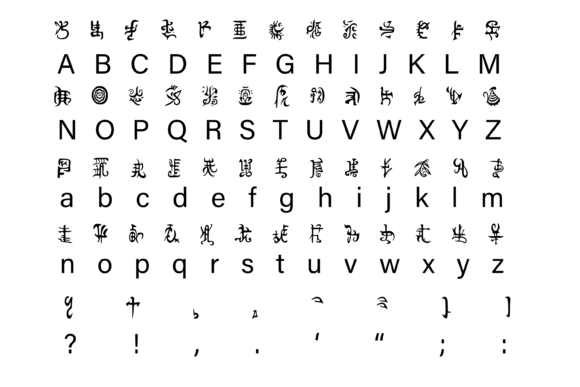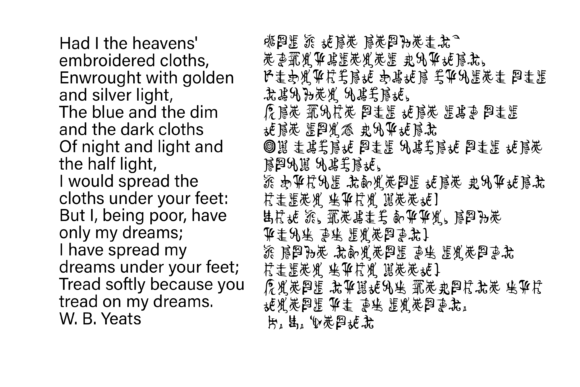
Introduction to Fantasy Script 11 Font
Imagine yourself sitting in a dimly lit tavern, surrounded by fellow adventurers, pouring over dusty tomes and ancient scrolls. The flickering candles cast shadows on the walls as you pour over the intricate details of your next Dungeons and Dragons campaign. And then, it hits you – the perfect font to bring your fantasy world to life. The Fantasy Script 11 Font is the perfect design resource to elevate your creative project and transport your audience to a world of magic and wonder.
As a designer, you’re always on the lookout for high-quality fonts that can elevate your work and make it stand out. The Fantasy Script 11 Font is a valuable addition to any design arsenal, offering a transparent background and free download for effortless integration into your project. With its unique, whimsical style, this font is perfect for designers working on fantasy-themed projects, from novels to video games and beyond.
Key Features of Fantasy Script 11 Font
- High-quality font with intricate, handwritten design elements, perfect for creative projects that require a unique touch.
- Unique characteristics include flowing, cursive lines and decorative flourishes, adding a touch of whimsy to any design.
- Ideal for use in creative projects such as book covers, invitations, and posters, where a high-quality, handwritten font is desired.
Honest Review: Fantasy Script 11 Font
I recently had the chance to work with the Fantasy Script 11 Font, and I must say it’s been a game-changer for my creative projects. This font is perfect for anyone looking to add a touch of whimsy and elegance to their designs.
- ✨ High-quality design: The Fantasy Script 11 Font is beautifully crafted, with intricate details and smooth lines that make it a joy to work with.
- ⚠️ Limited font styles: While the Fantasy Script 11 Font is beautifully designed, it’s available in a limited range of font styles, which may not be suitable for all design projects.
- ⚠️ Not ideal for small text: Due to its intricate details, the font may not be the best choice for small text or body copy, where readability is crucial.
Overall, I’m thoroughly impressed with the Fantasy Script 11 Font. Its unique design and high-quality construction make it an excellent addition to any designer’s toolkit. While it may have some limitations, it’s definitely worth considering for your next creative project.
The Fantasy Script 11 Font is commonly used in a variety of design projects, including invitations, brochures, and business cards. It is also used in digital design projects, such as social media graphics and website headers.